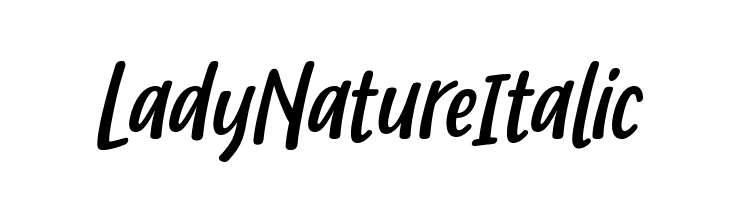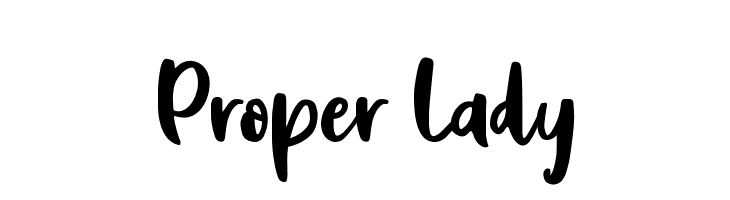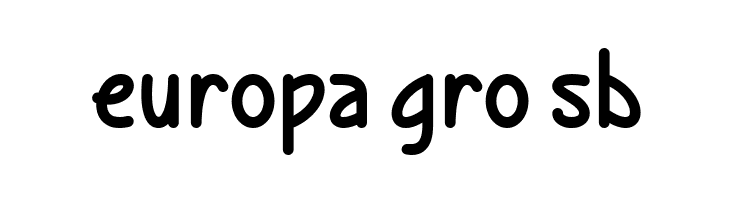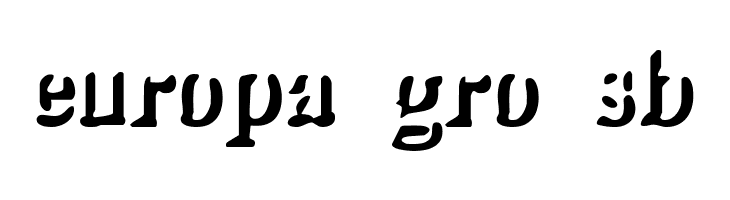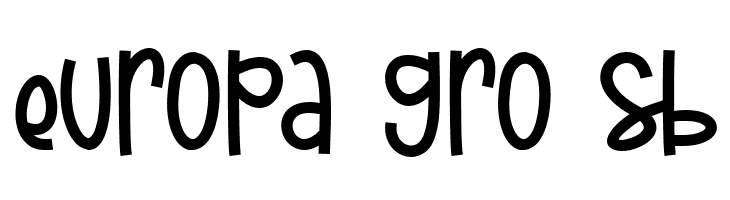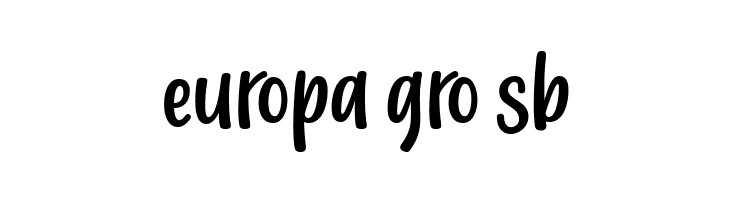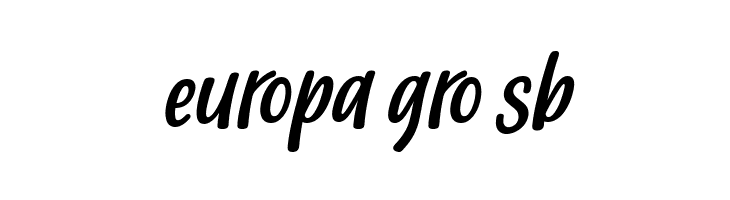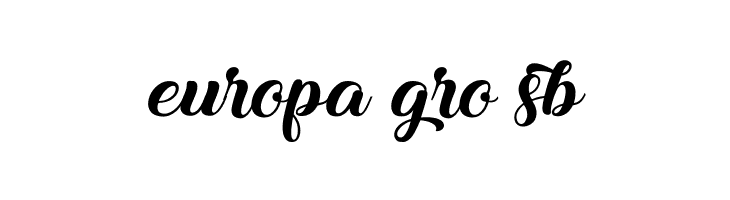
A classic, elegant script font with intricate, flowing strokes and ornamental details.
A playful, hand-drawn font with tall, narrow letters and a whimsical style.
A bold, flowing script font with elegant, cursive letterforms.
A bold, handwritten font with a playful and energetic style.
A playful, rounded font with smooth curves and a friendly style.
A bold, stencil-style font with angular cuts and shadow effects.
A playful, hand-drawn font with tall, narrow characters and a whimsical style.
A playful, handwritten font with rounded, smooth letterforms.
A flowing, cursive italic font with a natural and elegant style.